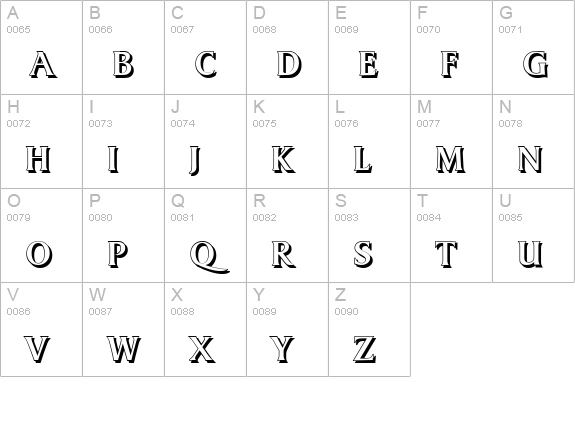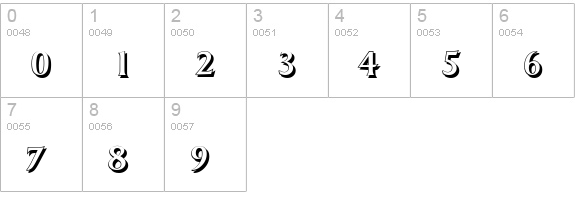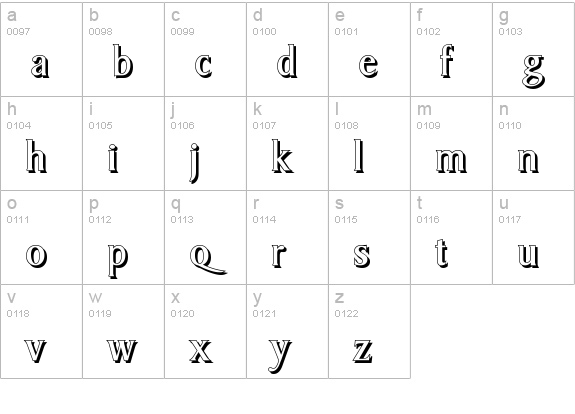
SydneyShadow-Regular Font Details
SydneyShadow-Regular is the standard, neutral variant in the SydneyShadow typeface family \xE2\x80\x94 well suited to general body text, paragraphs, and standard typographic work.
SydneyShadow-Regular font is a modern and stylish typeface that exudes sophistication and elegance. Its bold yet refined design makes it perfect for a wide range of projects, from branding to editorial design. The unique shadow effect adds a touch of depth and dimension to your text, making it stand out from the crowd. Best of all, SydneyShadow-Regular font is completely free to download at FontsMarket.com. Whether you're a designer looking to add a touch of flair to your work or a business owner seeking a distinctive font for your branding, SydneyShadow-Regular font is the perfect choice. Download it today and elevate your projects with this stunning typeface.